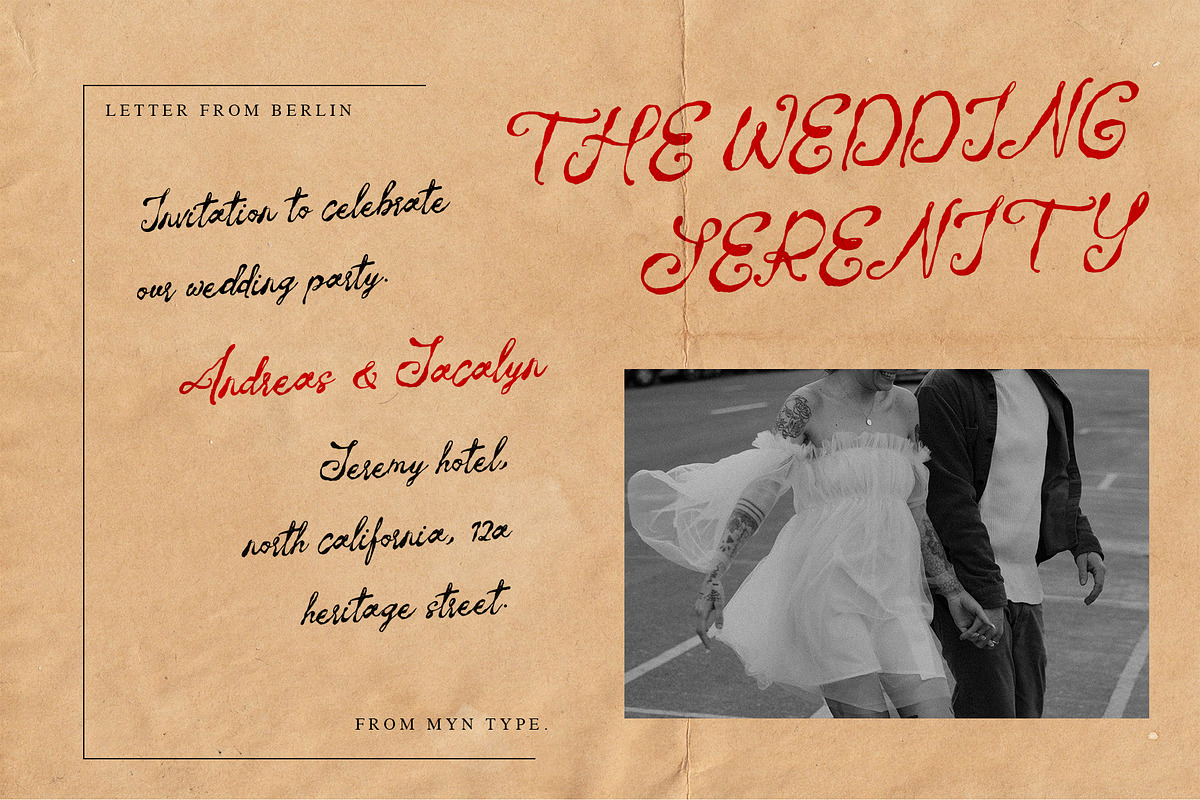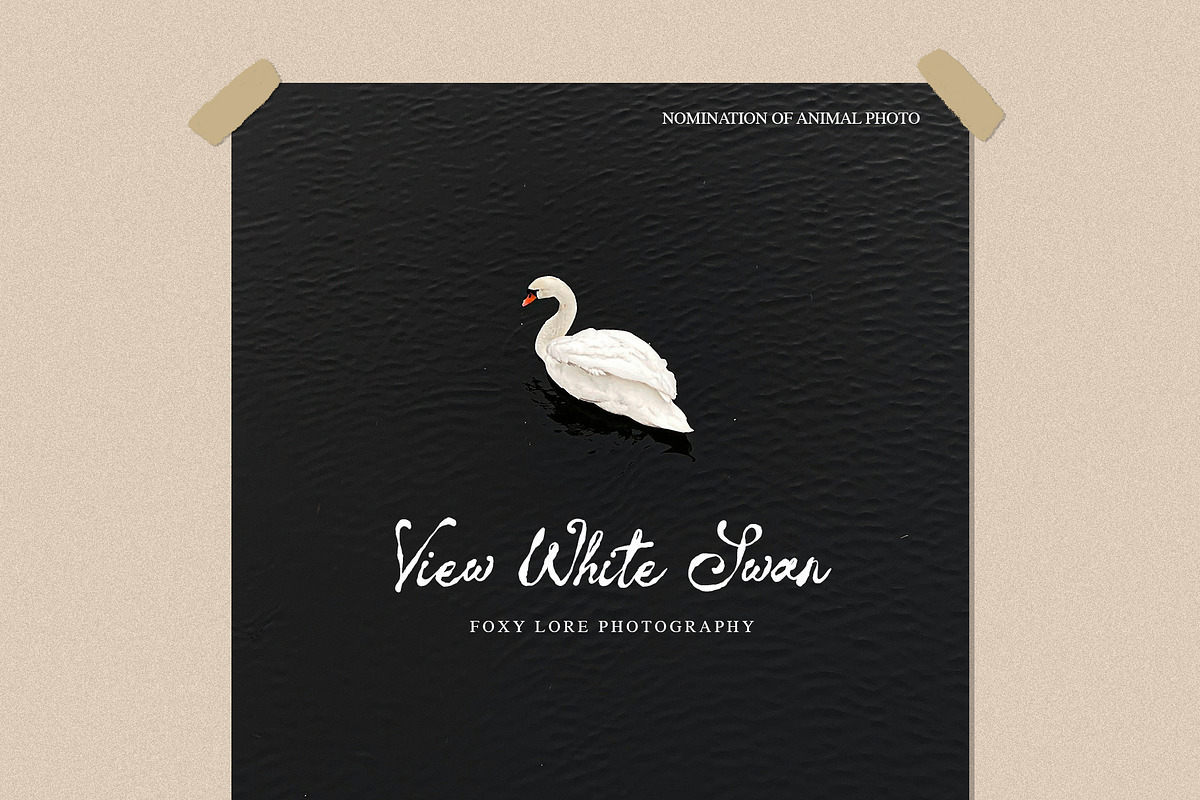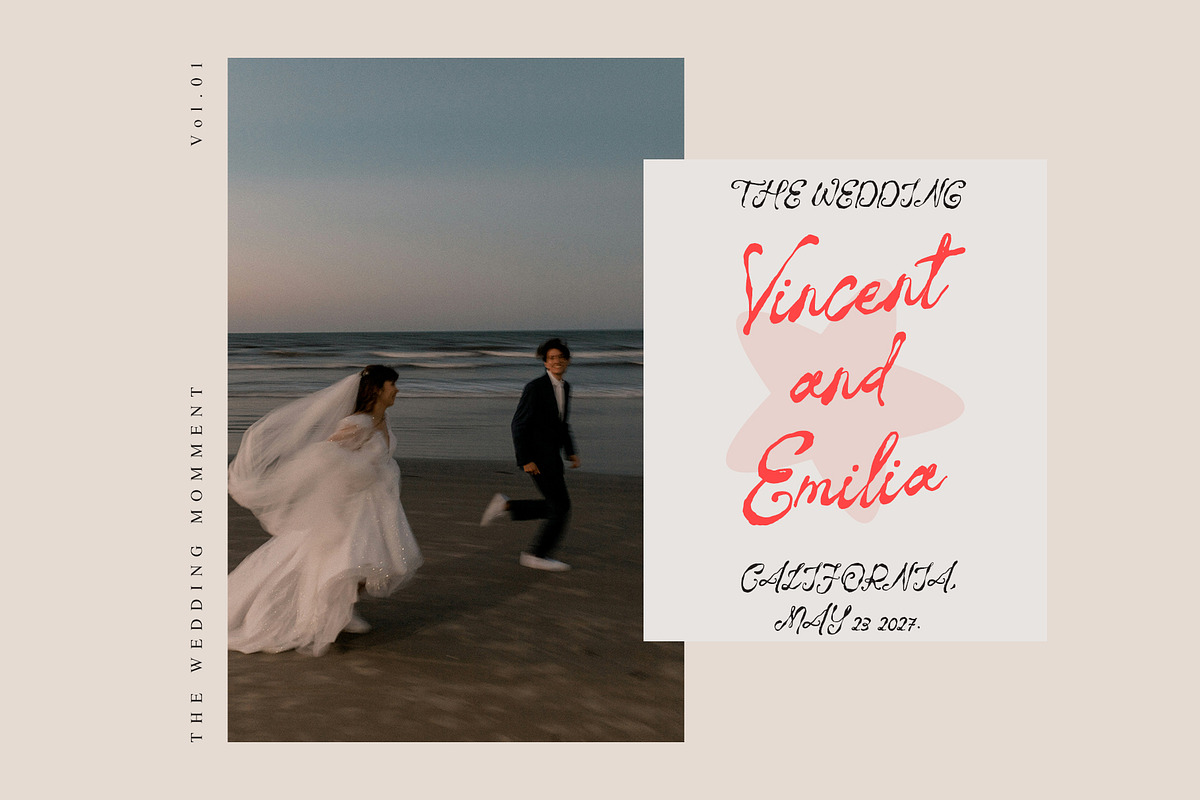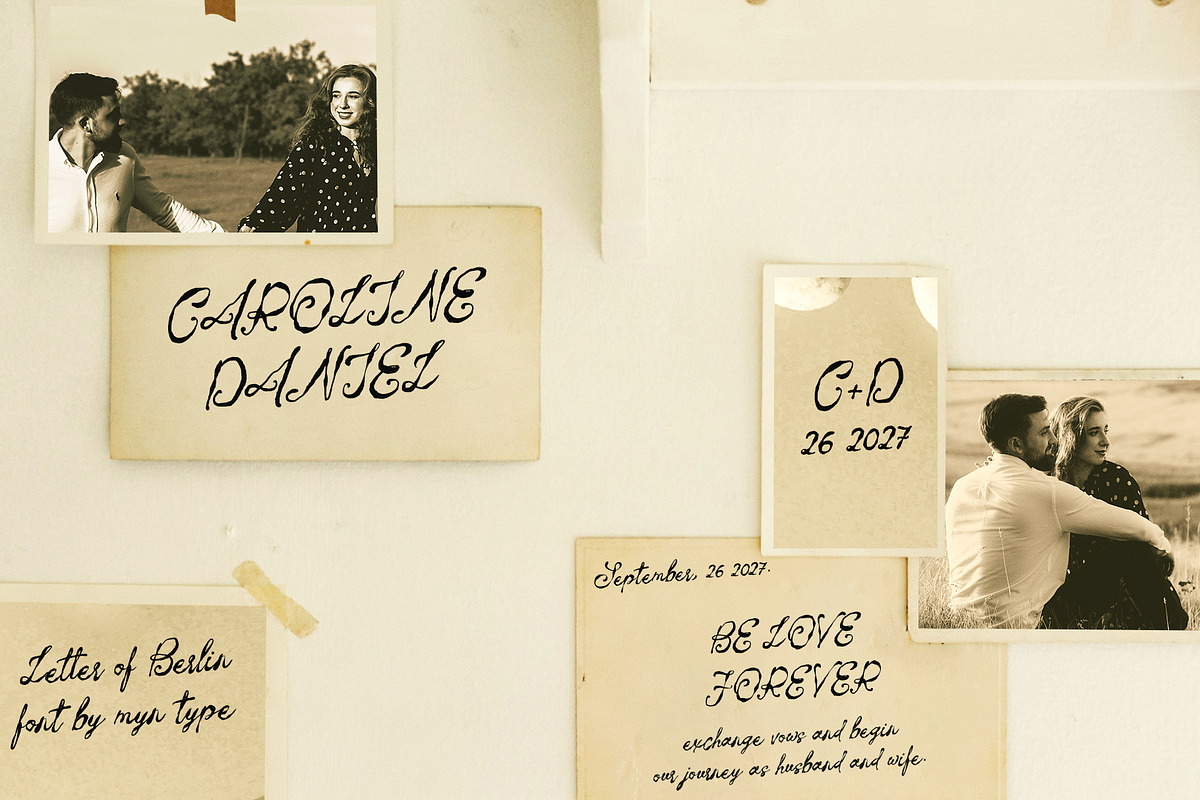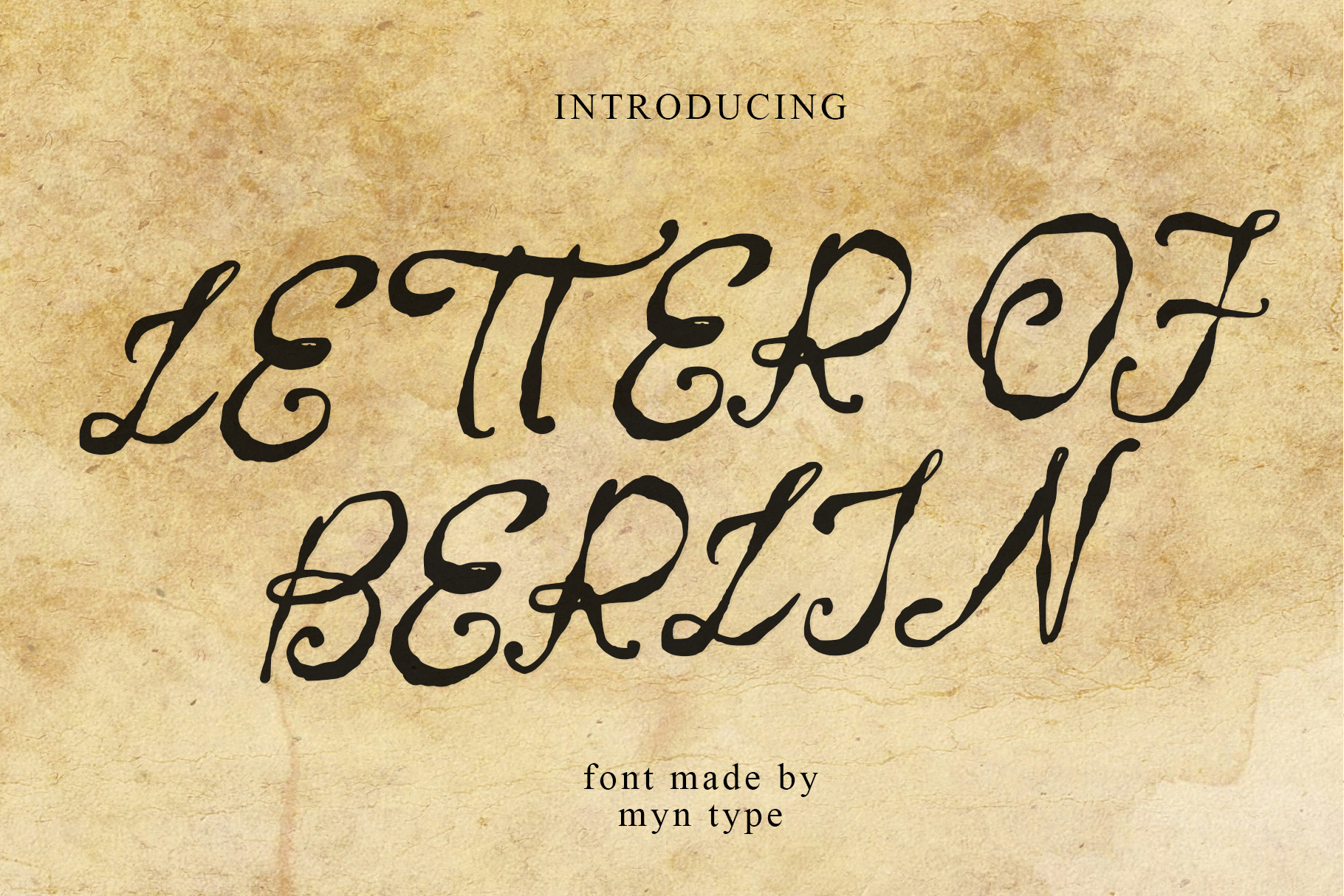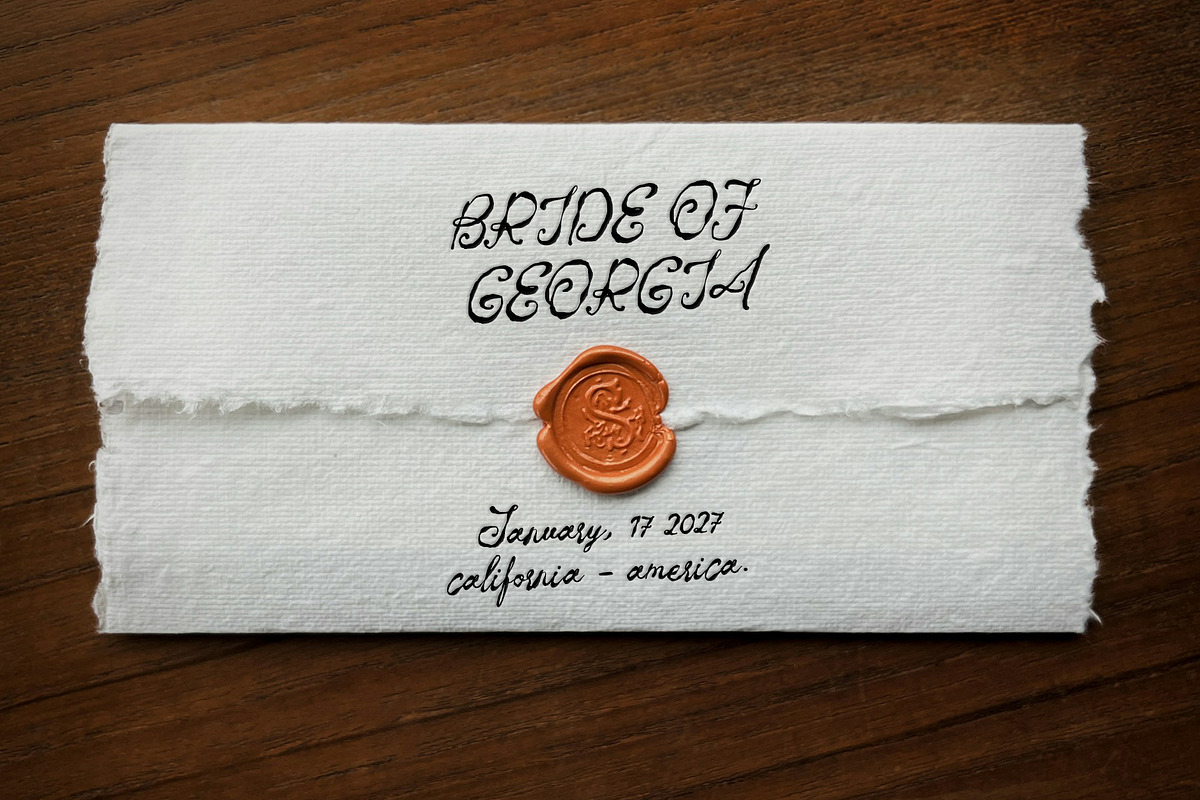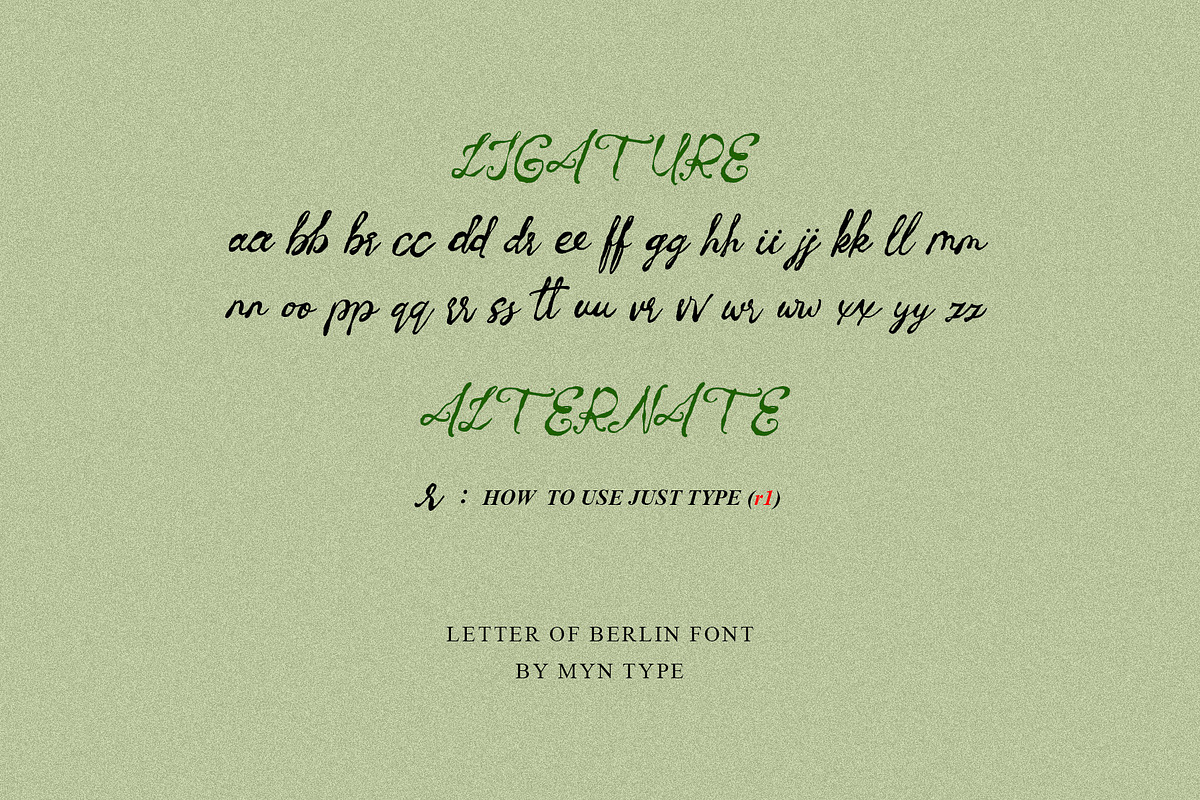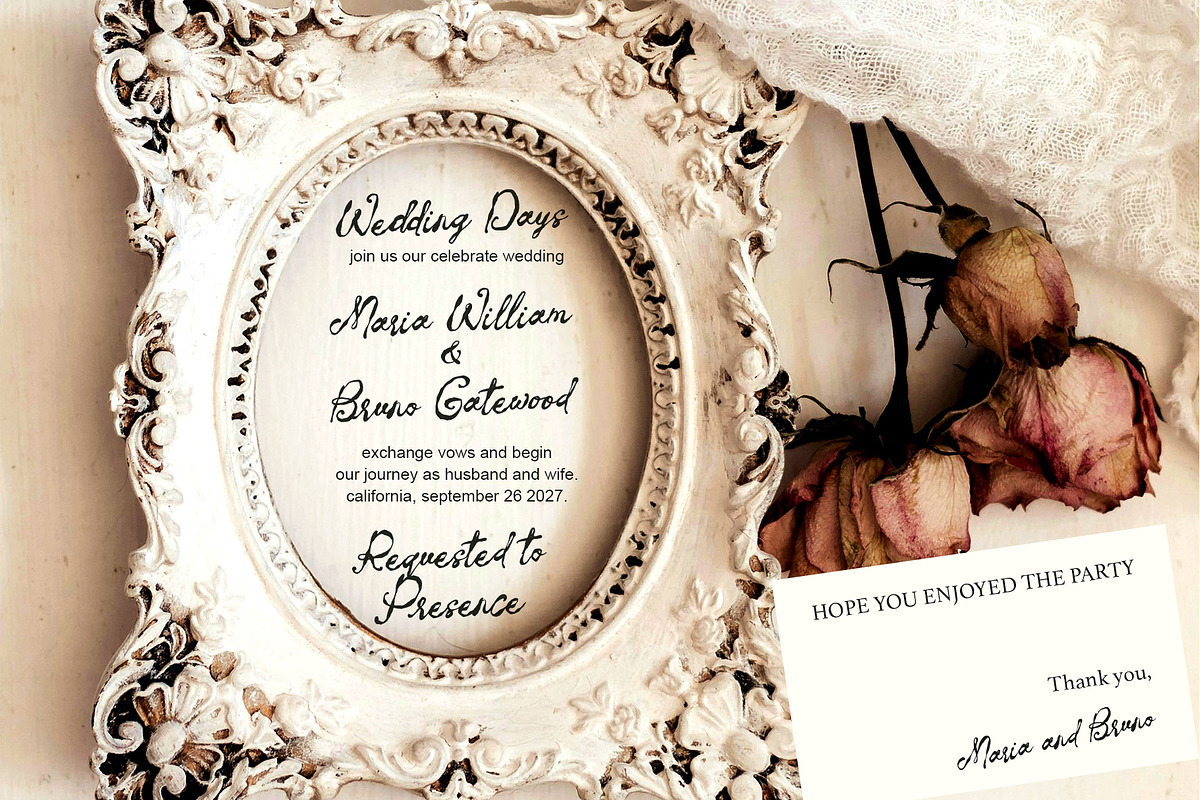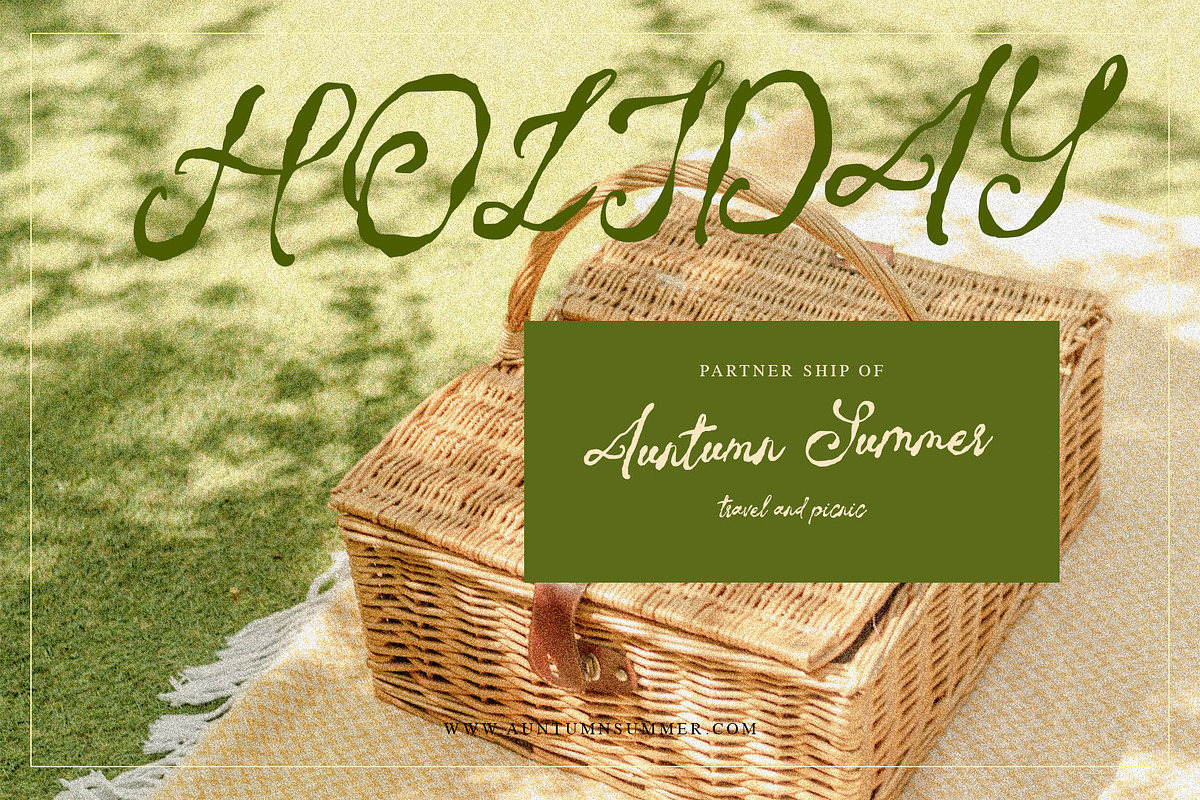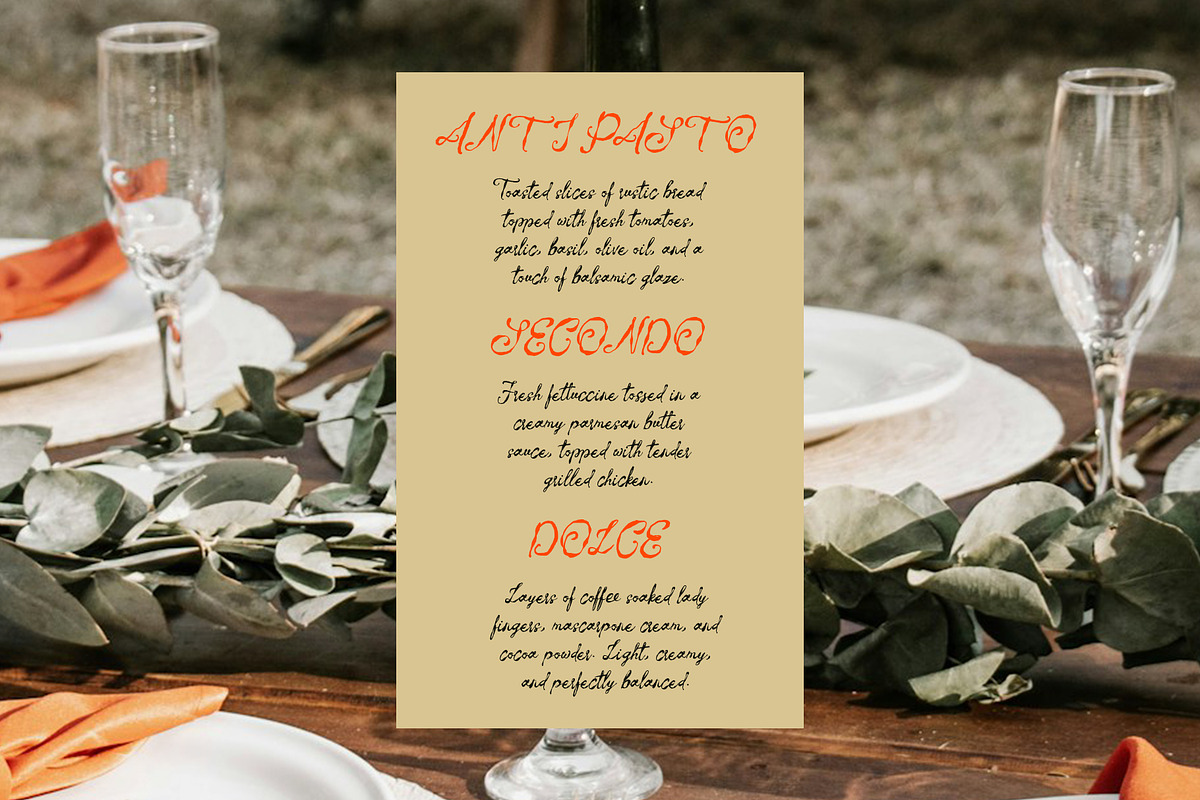
Letter of Berlin Classic Script Font
Letter of Berlin is an traditional handwritten script font inspired by classic calligraphy lettering. It delivers a timeless vintage feel with a natural handwritten touch.
Featuring irregular stroke thickness and rough, imperfect edges, this font creates an authentic ink on paper look.
This font perfect for wedding desing, branding, calligraphy logos, display product, invitation design, and other design elements that require a historical writing styles and authentic or classic touch.